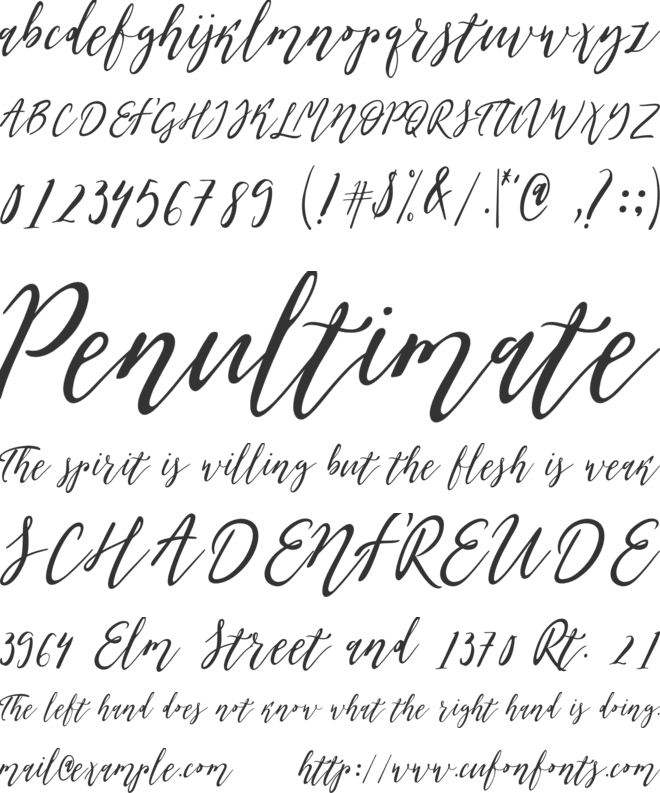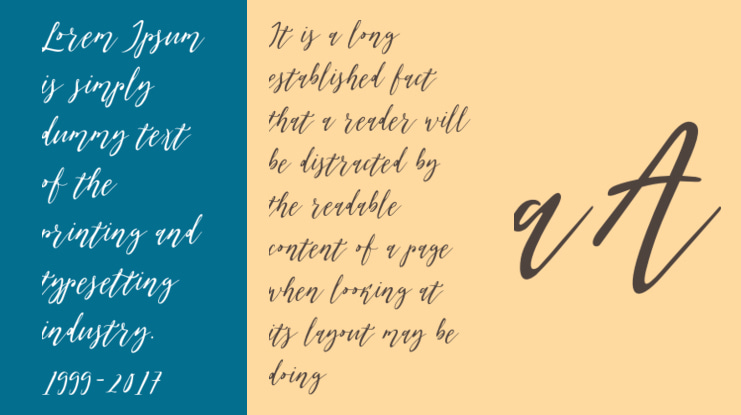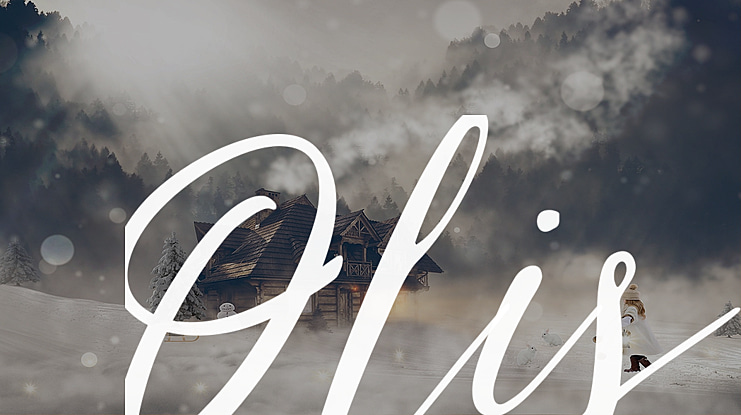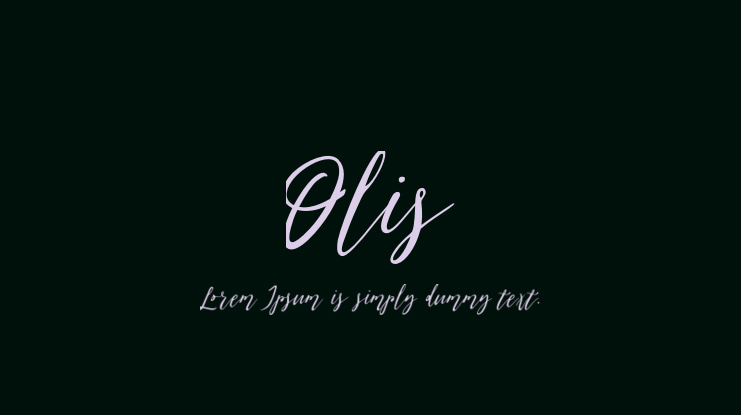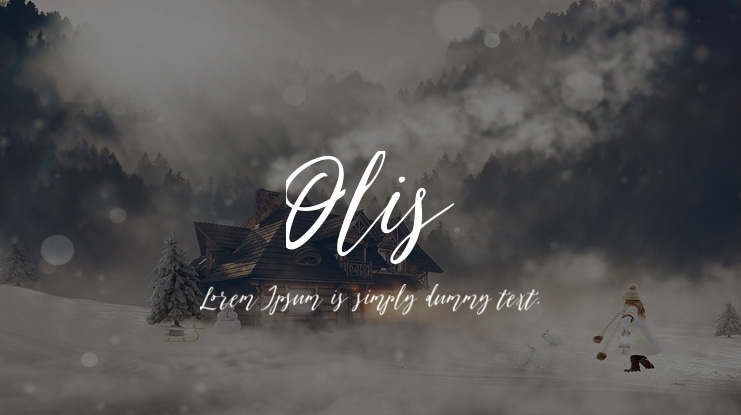
Olis Font
Olis is a stylish, fresh new handwritten script. Olis comes with two weights, numerals, punctuations, and some variations on character including OpenType alternates, and common ligatures. It helps set your designs apart by adding a custom-lettered look. You will also find that its initial and terminal letters can enhance your designs in new and creative ways.